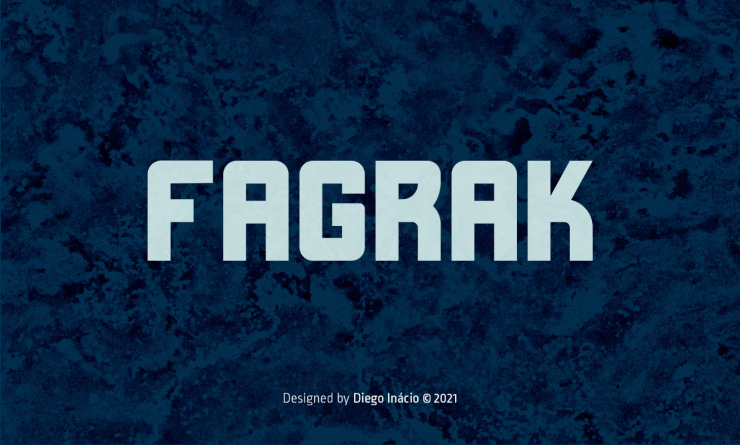
Fagrak – a free bold sans serif font created by Diego Inácio. This font is bold and beautiful. Perfect for making a statement and standing out from the crowd. Download this free font today!